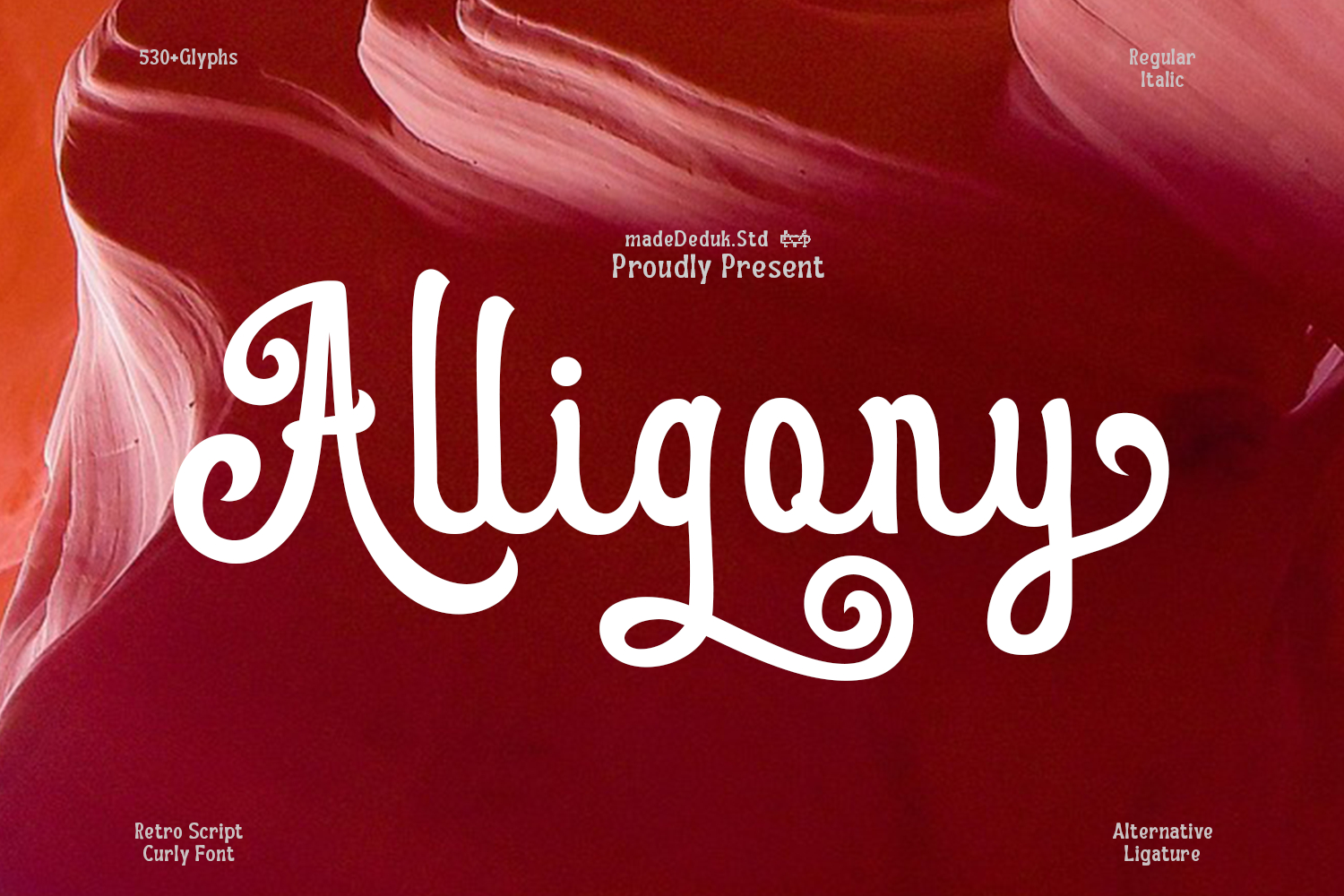
Alligony Retro Script
Alligony is a retro script fonts are the main choice because of their elegant appearance. This script font is suitable for use for titles or elements because of its unique and attractive appearance. Comes with curly style with much alternative and ligature. This font perfect for poster design, book covers, merchandise, fashion brands, advertising, magazines, album covers, wedding invitation and more.
•  Uppercase & Lowercase
•  Number & Symbol
•  International Glyphs
•  Multilingual support
•  Alternative
•  Ligature